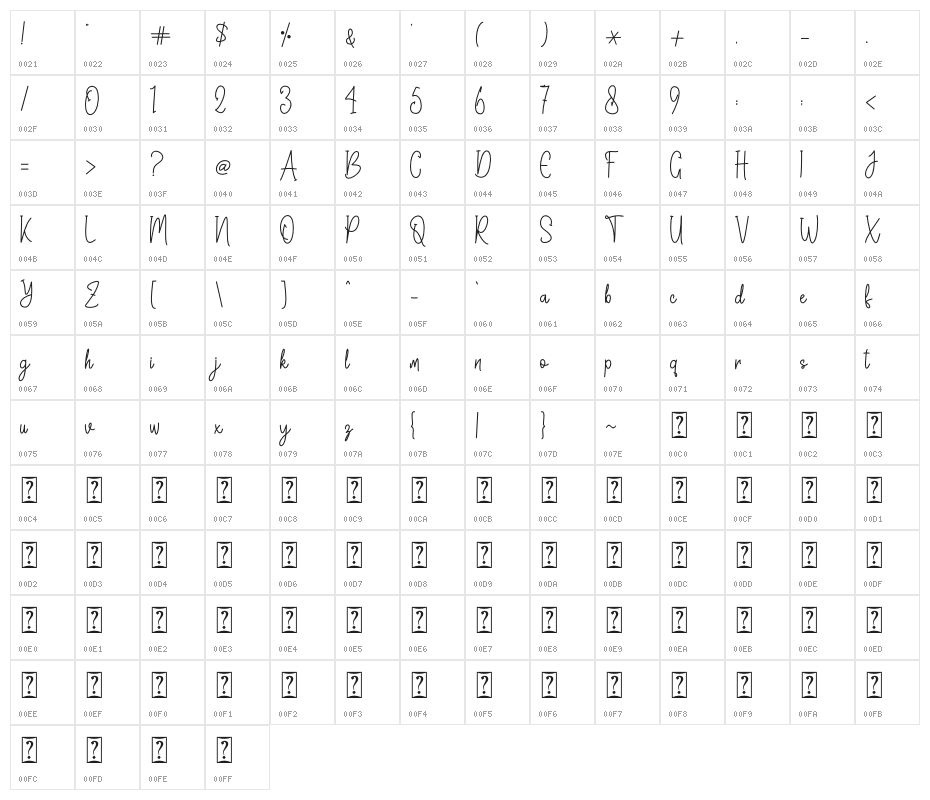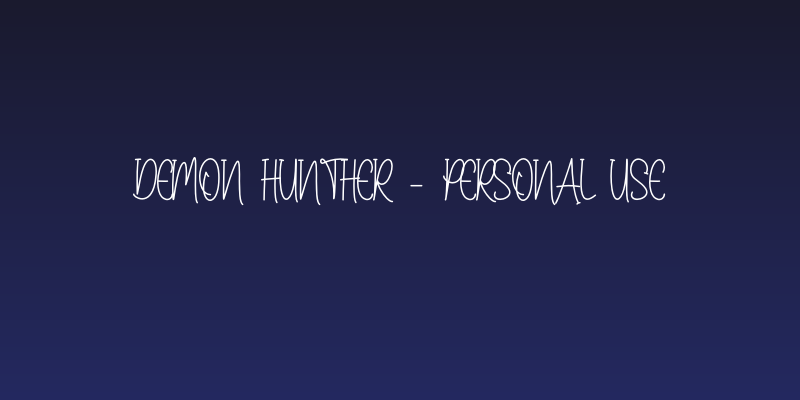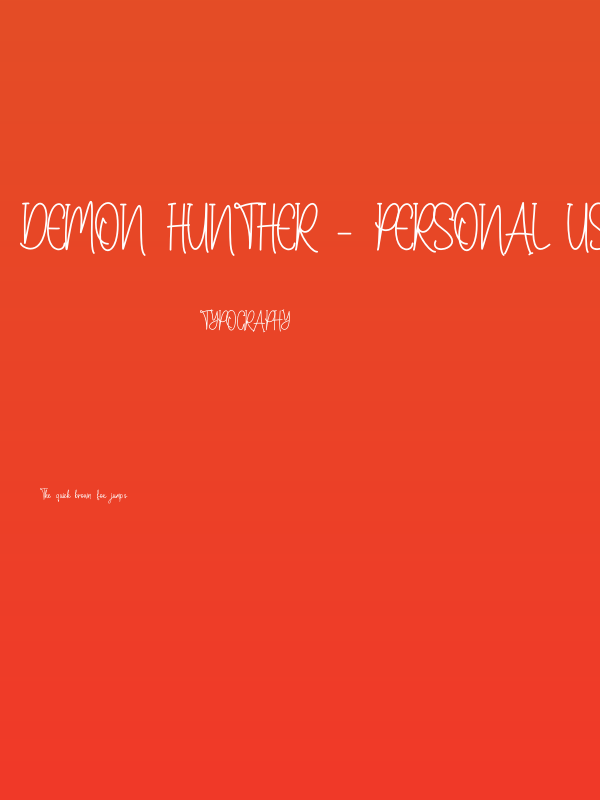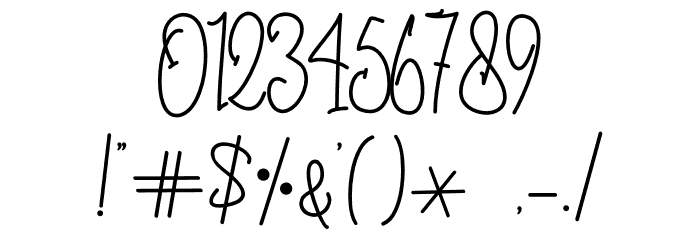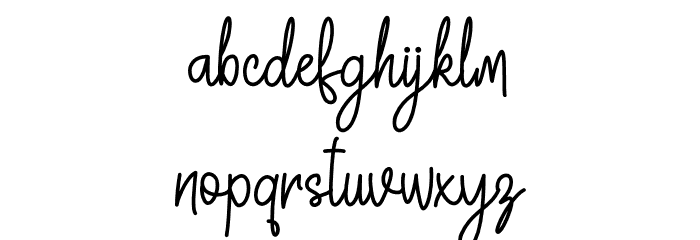
Demon Hunther - Personal Use Font
Demon Hunther - Personal Use Description
This font features a playful and whimsical style with tall, narrow characters that have a hand-drawn appearance. The uppercase letters are particularly elongated, giving them a unique and artistic flair. The lowercase letters maintain a consistent style, with smooth curves and a slightly casual feel. Numbers and special characters are designed to match the overall aesthetic, ensuring a cohesive look across all text elements. The font's distinctive style makes it ideal for creative projects where a touch of personality is desired.